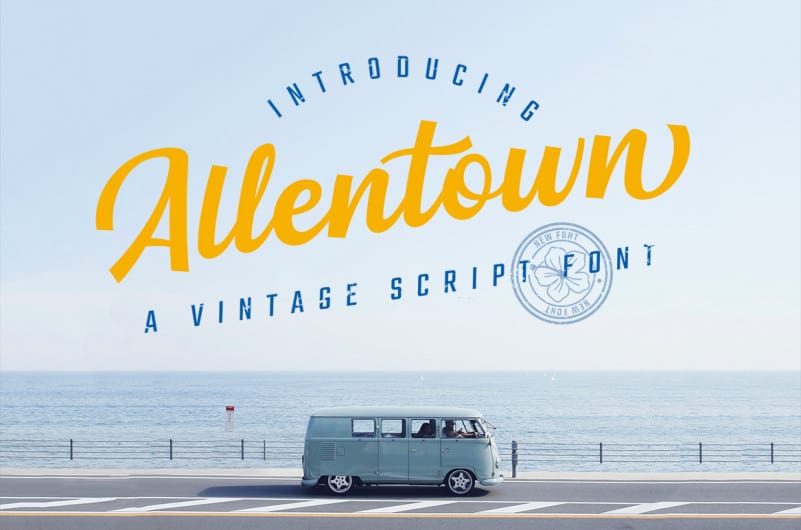
Allentown Script Font
Hello everyone. Allentown Font is a new varian of handmade script typepace. present to you to complete your colections of script font.
Allentown comes with uppercase, lowercase, numerals, punctuations, ligatures & multilingual support characters. Do hope helpfully to catch any design soul.